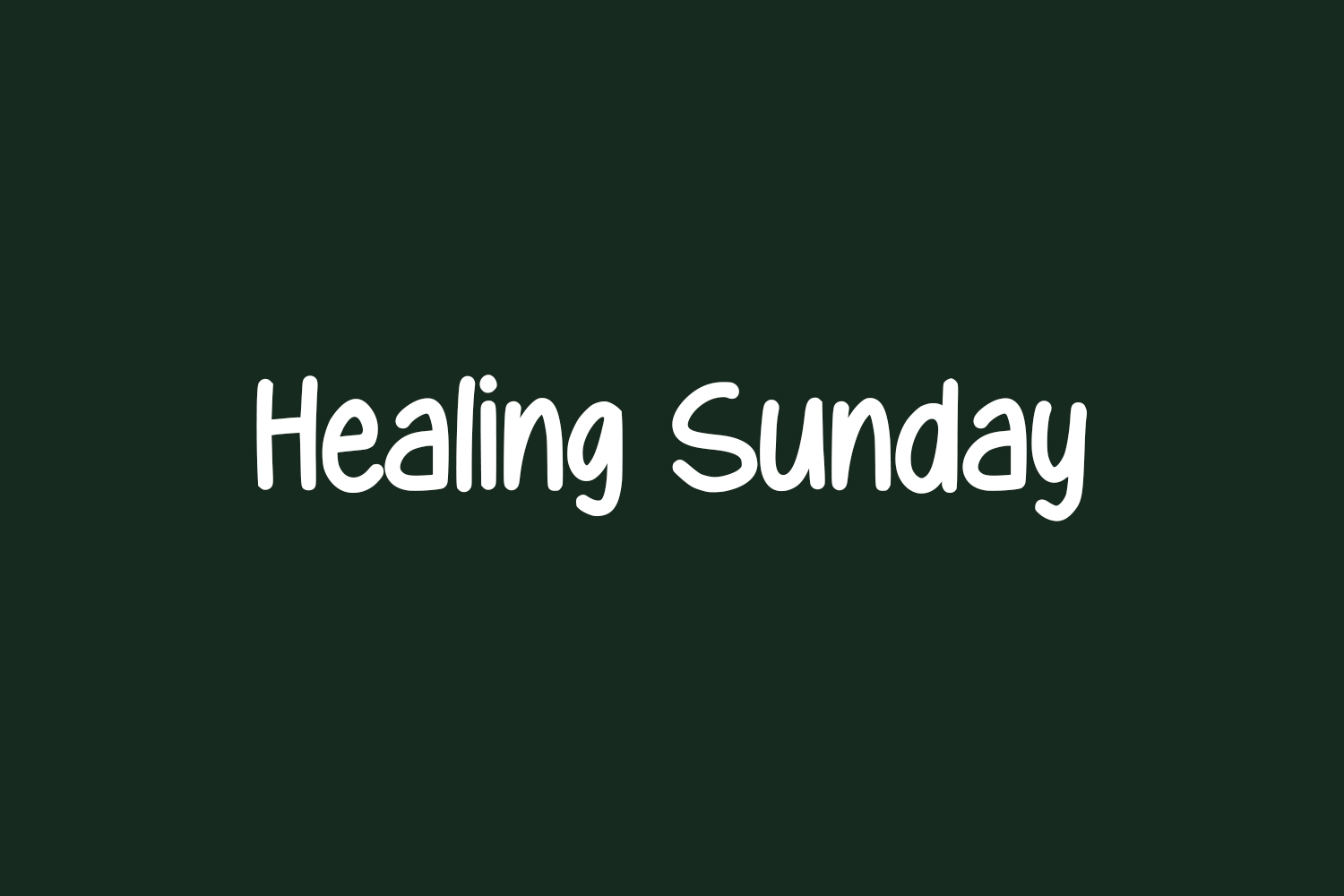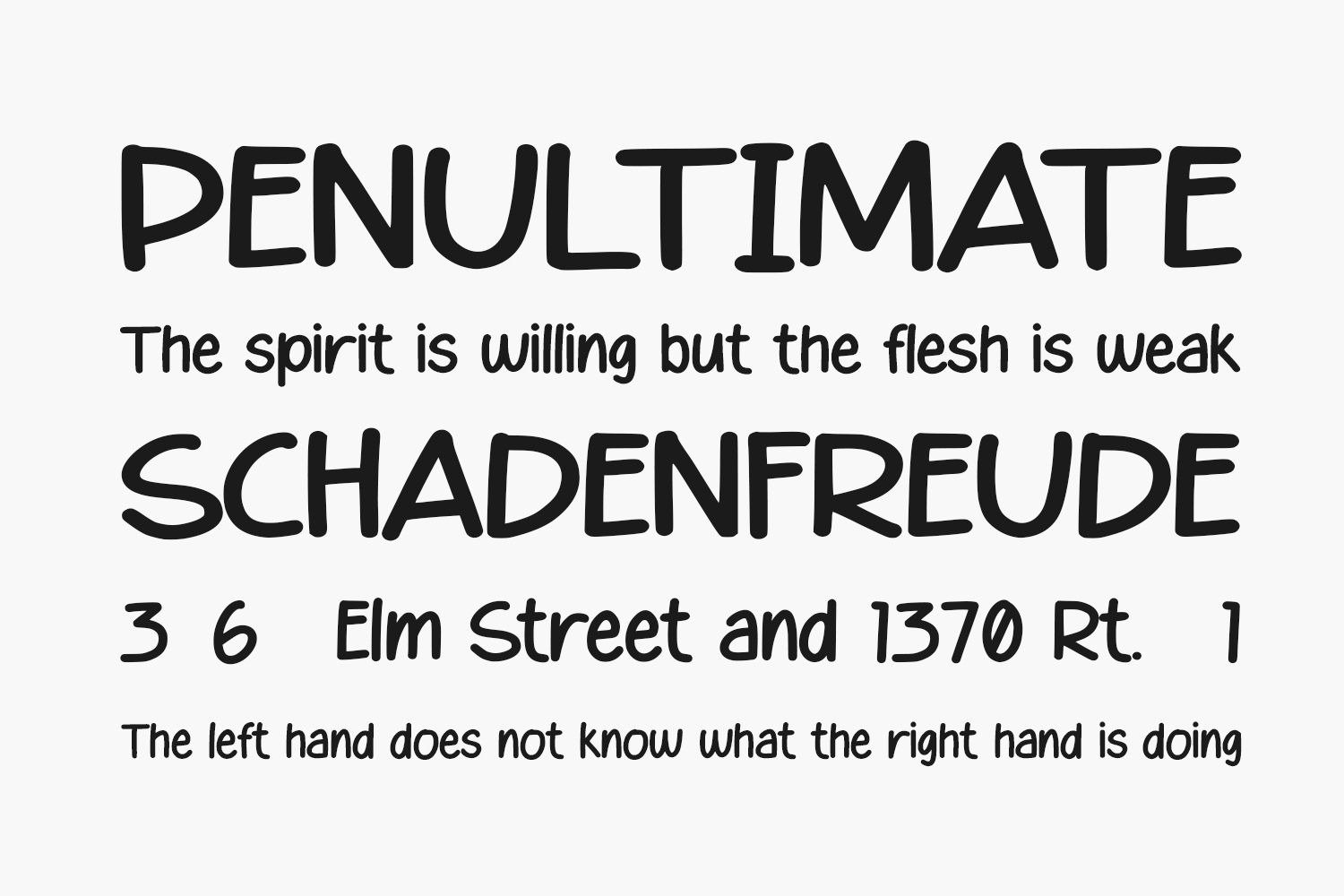
Healing Sunday Free Font is a trendy and chic display font. Whatever the topic, this font will be a wonderful asset to your font library, as it has the potential to enhance any creation. Healing Sunday Free Font is a demo and free for personal use only. Please purchase the full version for commercial use.
Designed by Gassstype